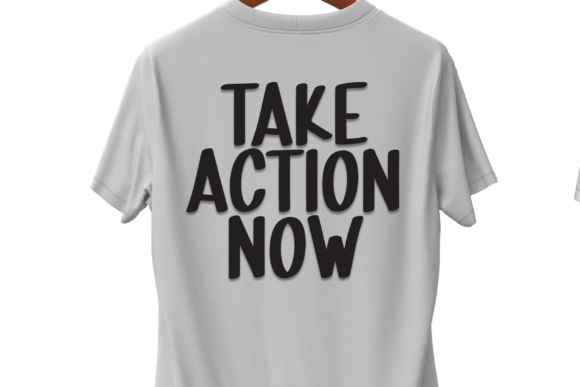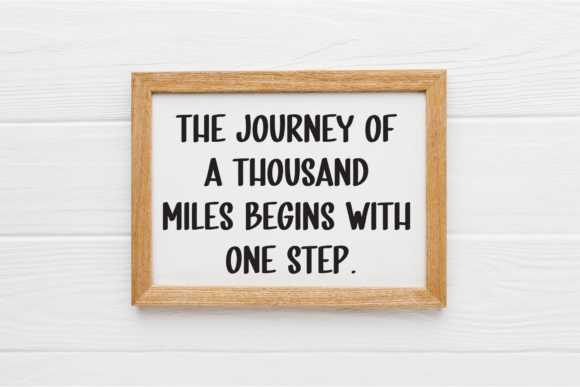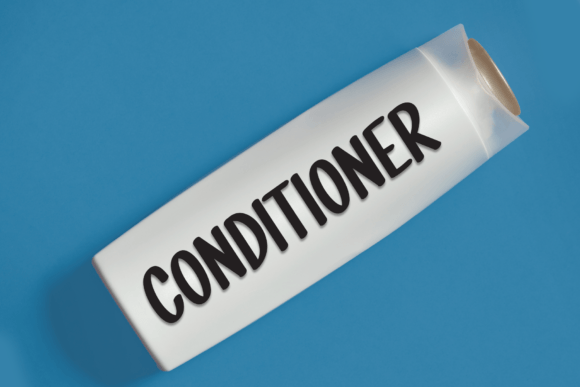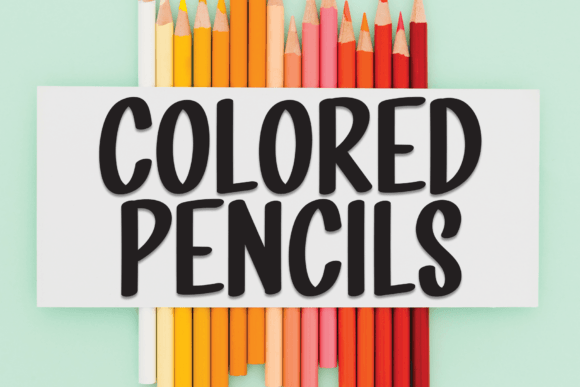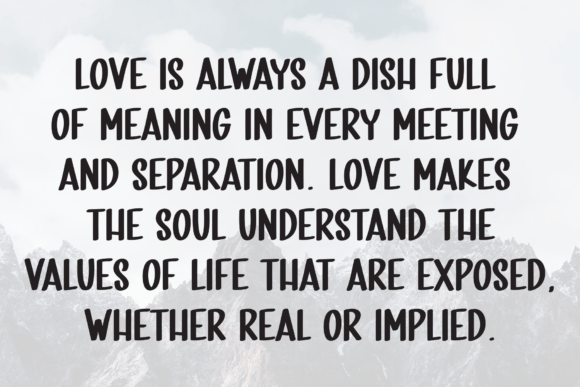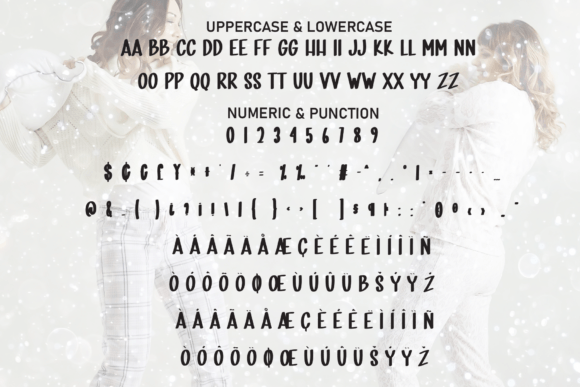
Dance Winter Font: Adding a Touch of Whimsy to Your Designs
Are you looking for a font that can add a dash of personality and playfulness to your designs? Look no further than the Dance Winter Font. This delightful handwritten display font is renowned for its endearing and amicable characteristics, making it perfect for a wide range of creative projects. In this article, we’ll dive into the features and benefits of the Dance Winter Font, and explore how you can use it to elevate your designs.
A Font that Exudes Fun and Creativity
The Dance Winter Font is infused with a sense of fun and creativity, making it an ideal choice for designers who want to add a personal touch to their work. Whether you’re creating wedding invitations, greeting cards, or social media graphics, this font is sure to bring a smile to your audience’s faces. Its playful and whimsical nature makes it perfect for designs that require a lighthearted and carefree approach.
One of the standout features of the Dance Winter Font is its suitability for wedding invitations and greeting cards. The font’s endearing and amicable characteristics make it perfect for conveying warmth and sincerity, which is essential for these types of designs. With the Dance Winter Font, you can create beautiful and heartfelt wedding invitations that will set the tone for a special day. Similarly, you can use it to create heartwarming greeting cards that will make your loved ones feel special.
Adding a Personal and Distinctive Touch to Your Designs
The Dance Winter Font is a uniquely stylish font that can add a personal and distinctive touch to your designs. Its handwritten nature gives it a human feel that is hard to replicate with other fonts. With this font, you can create designs that stand out from the crowd and reflect your personality. Whether you’re a designer, crafter, or DIY enthusiast, the Dance Winter Font is a great choice for anyone looking to add a touch of whimsy to their work.
Key Features of the Dance Winter Font
- Handwritten display font: The Dance Winter Font is a handwritten display font that exudes a sense of fun and creativity.
- Endearing and amicable characteristics: The font’s endearing and amicable characteristics make it perfect for conveying warmth and sincerity.
- Perfect for wedding invitations and greeting cards: The font is ideal for creating beautiful and heartfelt wedding invitations and greeting cards.
- Uniquely stylish: The Dance Winter Font is a uniquely stylish font that can add a personal and distinctive touch to your designs.
Tips for Getting the Most Out of the Dance Winter Font
- Experiment with different colors and textures: The Dance Winter Font looks great in a variety of colors and textures. Experiment with different combinations to find the one that works best for your design.
- Pair it with other fonts: The Dance Winter Font pairs well with other fonts. Try pairing it with a sans-serif font for a modern look or a serif font for a more traditional look.
- Use it for headlines and titles: The Dance Winter Font is perfect for headlines and titles. Use it to add a touch of personality to your designs.
The Dance Winter Font is a delightful handwritten display font that is perfect for designers and crafters who want to add a touch of whimsy to their work. With its endearing and amicable characteristics, it’s ideal for creating beautiful and heartfelt wedding invitations, greeting cards, and other designs. Whether you’re looking to add a personal and distinctive touch to your designs or simply want to create something that stands out from the crowd, the Dance Winter Font is a great choice.